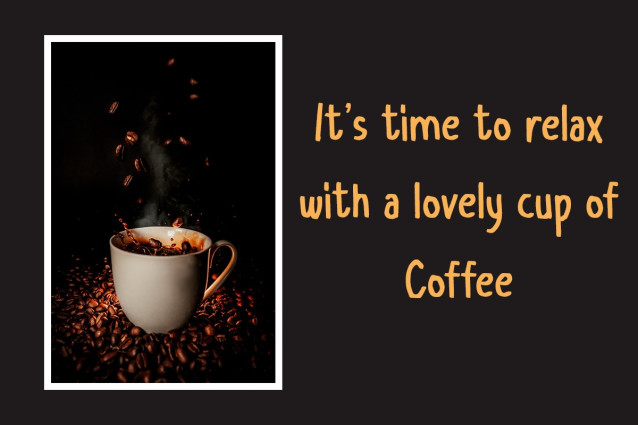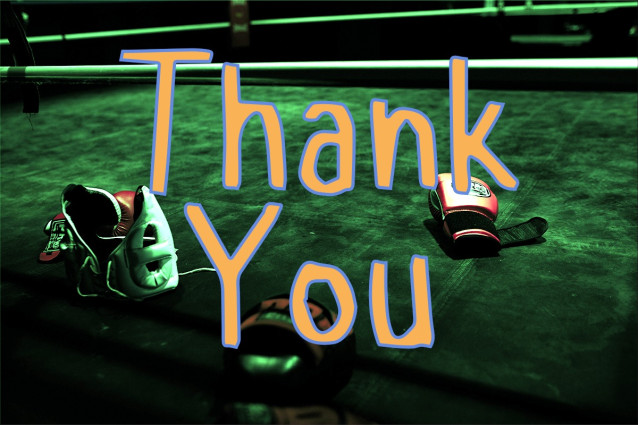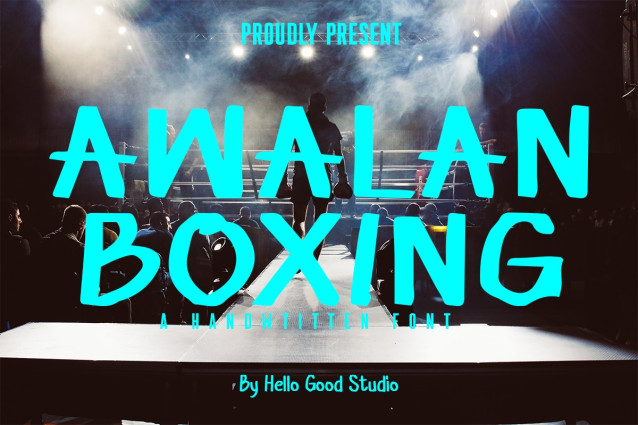
Awalan Boxing Font
Awalan Boxing Font is a striking handwritten font that captures the raw energy and dynamic spirit of the boxing world. With a distinct and expressive style, this typeface brings a sense of grit, passion, and authenticity to any design it graces. Awalan Boxing is inspired by the intensity of hand-drawn brush strokes, mirroring the swift and powerful movements characteristic of the sport.
The letterforms in Awalan Boxing are bold and assertive, conveying a sense of strength and resilience. The handcrafted nature of the font adds a personal touch, as if each character has been meticulously sketched with the same dedication as a boxer honing their craft. The uneven edges and intentional irregularities in the strokes contribute to the font’s authentic and human feel, creating a connection between the written word and the visceral world of boxing.